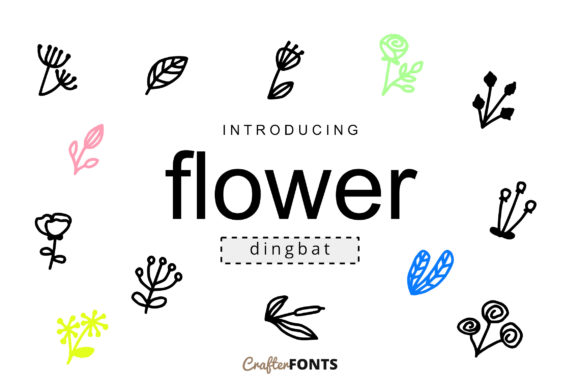
Welcome to the enchanting world of Flower Doodle Dingbat Font, where creativity blooms and imagination takes flight. Step into a realm of exquisite artistry, where every delicate stroke and intricate detail is crafted to captivate your senses.
As you explore this collection of dingbats, let your mind wander through a garden of whimsical designs. Discover a treasure trove of symbols, flourishes, and ornaments that dance across the page, adding a touch of magic to your projects. From enchanting floral motifs to elegant swirls and flourishes, each element is a masterpiece of digital artistry.
With Flower Doodle Dingbat Font, you hold the key to unlocking endless possibilities. Whether you're a seasoned designer or a creative enthusiast, this font family will ignite your imagination and elevate your designs to new heights.
Indulge in the beauty of Flower Doodle Dingbat Font. Let its enchanting charm inspire you to create captivating logos, eye-catching social media graphics, delightful invitations, and so much more. Your designs will blossom with an air of sophistication and elegance, leaving a lasting impression on your audience.
So, dive into the world of Flower Doodle Dingbat Font, where creativity knows no bounds. Let your imagination soar and watch as your designs transform into works of art. Embrace the beauty of life's simple pleasures and add a touch of whimsy to your digital creations.